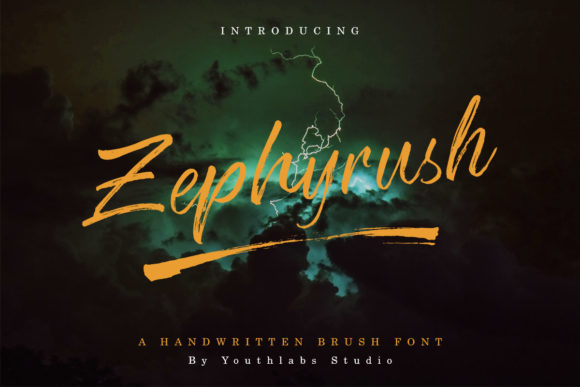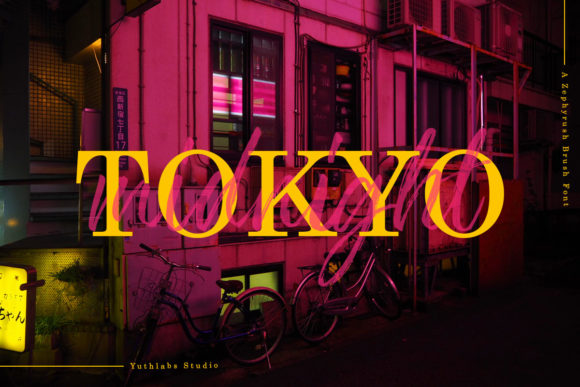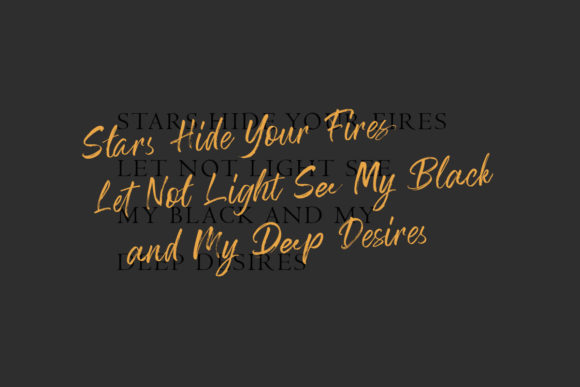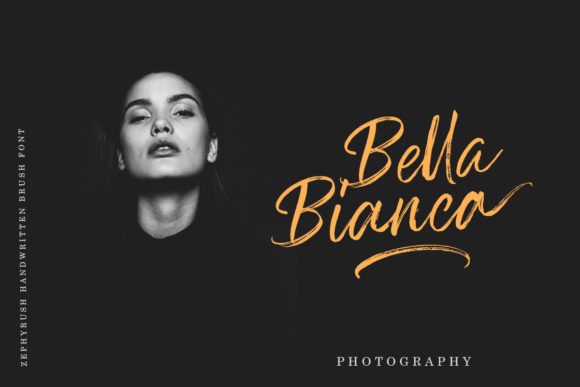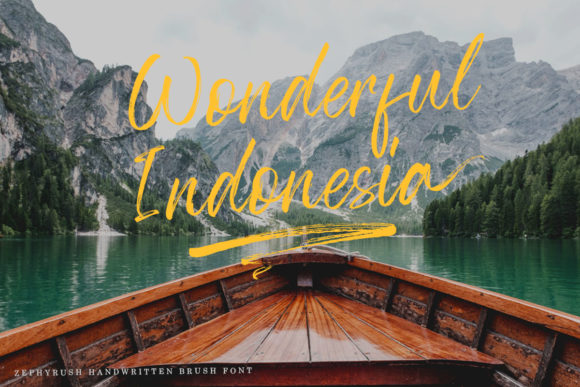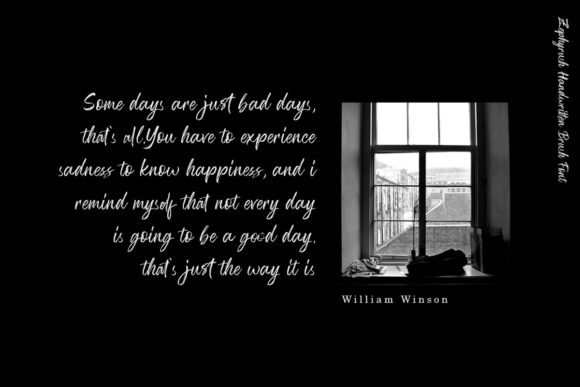
HomeScript FontsZephyrush Font Script Fonts Zephyrush Font FacebookXPinterestWhatsApp Zephyrush Font Poster 2 Zephyrush Font Poster 3 Zephyrush Font Poster 4 Zephyrush Font Poster 5 Zephyrush Font Poster 6 Zephyrush Font Poster 7 Zephyrush Font Poster 8 About Zephyrush Font Zephyrush is a bold and powerful dry brush script font that will easily turn any message into a standout! DOWNLOAD ON CREATIVE FABRICAThis font is sold and delivered by Creative Fabrica. Font Canyon may earn a commission if you buy through this link. People also explored Techead Font Hobbies Love You Font Marqona Font Affinity Grove Font Blockway Font Botes Frica Font Angel Font Soulshine Font Hello Baby Font 337 0 TagsZephyrush Font Previous articleHighland FontNext articlePhanthomim Font LEAVE A REPLY Cancel reply Comment: Please enter your comment! Name:* Please enter your name here Email:* You have entered an incorrect email address! Please enter your email address here Website: Save my name, email, and website in this browser for the next time I comment. Personal Use Free Potato Pancakes Personal Use Free Read more about this font Baveuse Personal Use Free Read more about this font Wallabys Junior Personal Use Free Read more about this font Good Times Personal Use Free Read more about this font BLOG Top 10 Handwritten Fonts That Elevate Your Designs Top 10 Handwritten Fonts That Will Elevate Your Designs Handwritten fonts bring a warm, personal touch to every creative project. Whether you're designing logos, invitations,... Free Fonts Risk: Why Free Fonts Can Be Dangerous for Designers How to Install and Use Fonts on Windows, macOS, and Web Projects Top 7 Google Fonts Alternatives for Faster and Privacy-Friendly Web Design (2025)